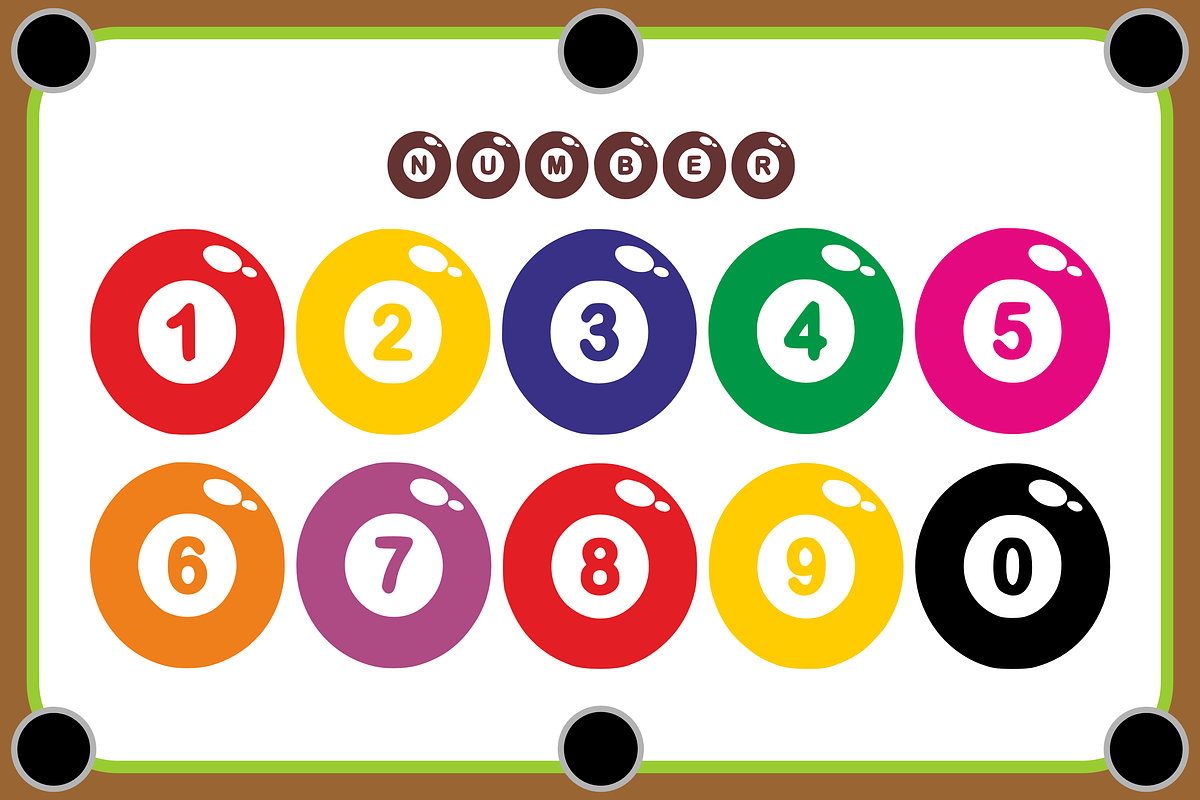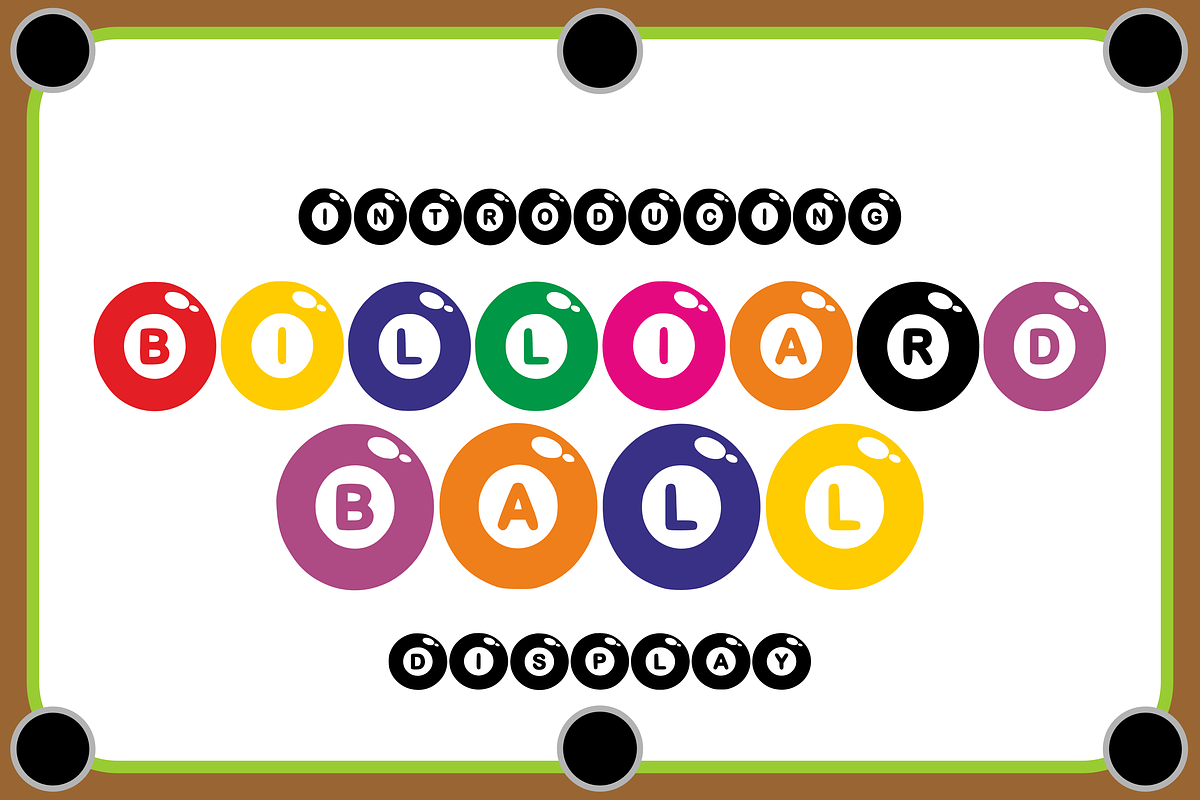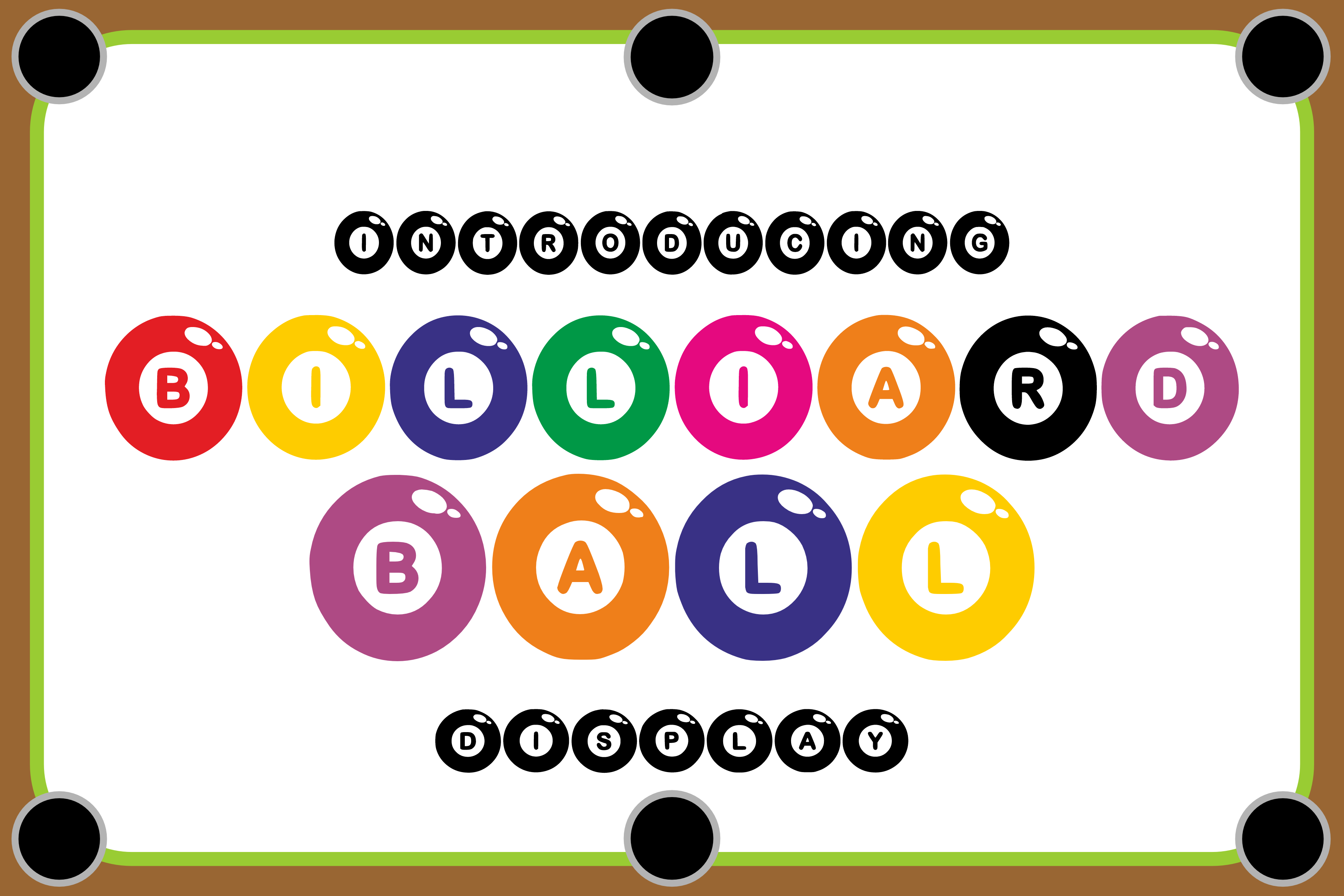
Billiard Ball - Bubble Font Types
Introducing “Billiard Ball”, a whimsically unique font inspired by that unmistakable round charm of classic billiard balls. Every character embodies a delightful roundness, packed with personality that is sure to add flair to your designs. Imagine party invitations where each word adds to the fun, or adorable stickers graced with this rounded font.
From mugs that’ll make coffee conversations intriguing to greeting cards that’ll win hearts at first sight, “Billiard Ball” seamlessly adds charm to all. This font is simply perfect when used for t-shirt screen printing, infusing a playful touch to casual wear. “Billiard Ball” – a truly versatile font designed to bring fun-filled creativity to your fingertips.